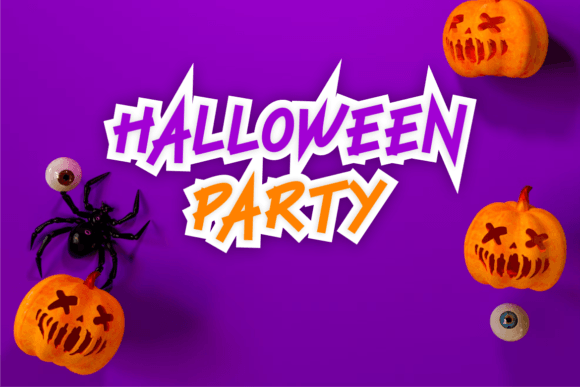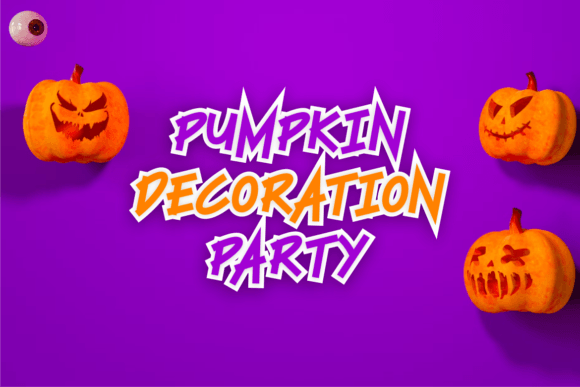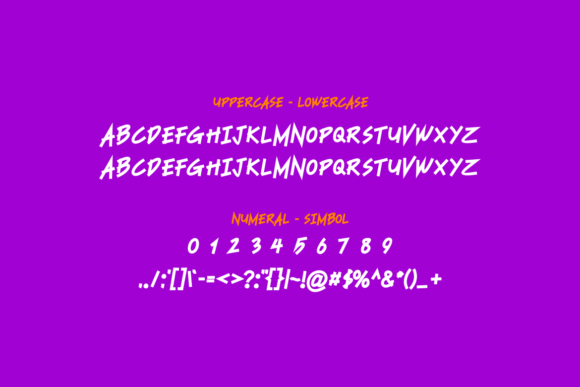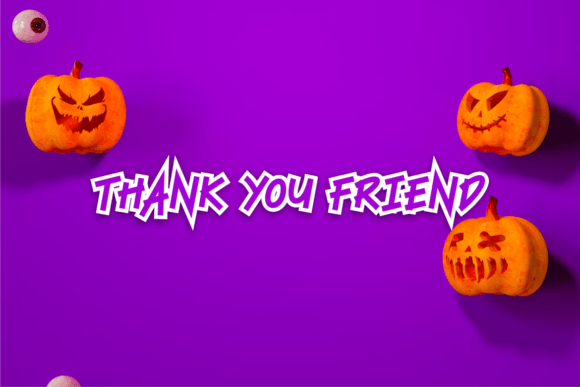
Introduction to Hello Waloeh Font
Have you ever been working on a creative project and suddenly, the perfect font pops into your mind? For designers, this moment is pure magic. It’s the moment when your design goes from good to great, and it’s all thanks to the right typography. For me, that moment happened when I stumbled upon the Hello Waloeh Font. Its bold, all-caps display style instantly grabbed my attention and I knew I had to learn more.
With its unique pointy letterforms and eye-catching design, Hello Waloeh Font is a game-changer for any creative project. Whether you’re designing posters, headlines, or social media graphics, this high-quality font is sure to make your text stand out and leave a lasting impression. As a valuable design resource, Hello Waloeh Font offers a transparent background, making it easy to overlay on any image or background.
Key Features of Hello Waloeh Font
- Unique Hand-Drawn Design: The Hello Waloeh Font offers a distinctive, hand-drawn style that can elevate any creative project.
- Wide Character Set: The Hello Waloeh Font includes a wide range of characters, including uppercase and lowercase letters, numbers, and punctuation marks.
- Perfect for Various Designs: With its versatile design, the Hello Waloeh Font is suitable for a variety of creative projects, including logos, graphics, and more.
Honest Review: Hello Waloeh Font
I recently came across the Hello Waloeh Font, and I’m excited to share my thoughts on this design resource. As a designer, I’m always on the lookout for high-quality fonts that can elevate my creative projects.
What works well for the Hello Waloeh Font is its clean and modern design. The font is perfect for titles and headings, and it looks great on a transparent background. The free download option is also a big plus, making it accessible to designers of all levels.
- ✨ Clean and modern design
- ✨ Perfect for titles and headings
- ✨ Great on a transparent background
However, there are a few limitations to consider. The font only comes in one weight, which may not be ideal for designers who need a range of weights and styles. Additionally, the font may not be suitable for body text, as it can be a bit difficult to read in smaller sizes.
⚠️ Limited weight options
Overall, I think the Hello Waloeh Font is a great addition to any designer’s toolkit. While it may not be perfect, its clean design and free download option make it a valuable resource for creative projects.
Tips for Getting the Most Out of Hello Waloeh Font
Experiment with different font sizes and styles to achieve the desired look for your project. Use the font in conjunction with other design elements to create a visually appealing design.
The Hello Waloeh Font is perfect for creating custom logos, branding materials, and marketing materials. It’s also great for adding a touch of elegance to presentations and reports.